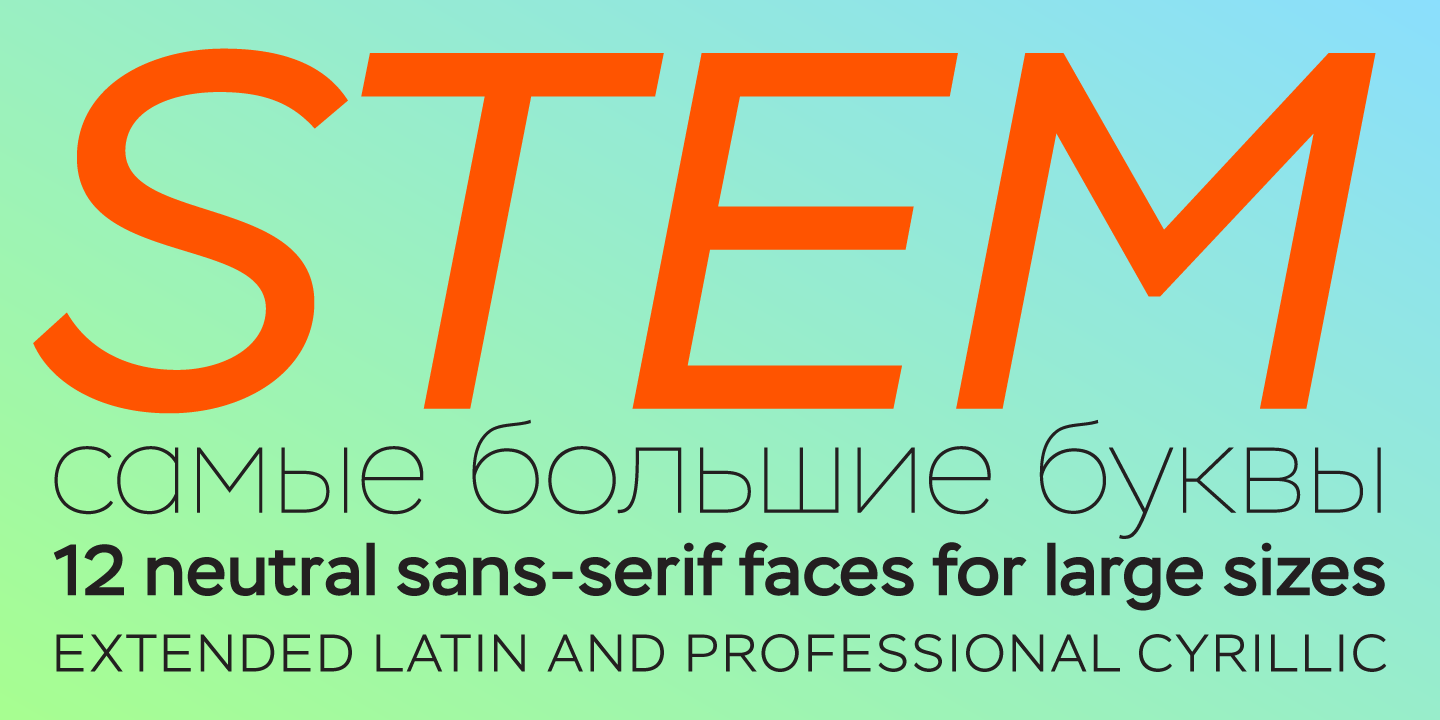
The Stem Font excels in scientific publications, educational materials, technology company branding, research institution communications, engineering documentation, mathematics textbooks, innovation-focused marketing, and STEM-related design projects that require clarity and systematic precision with contemporary appeal.
What makes the Stem Font Free Download so exciting is its perfect embodiment of scientific methodology through typography, featuring clean geometric forms and systematic proportions that reflect the logical structure fundamental to science, technology, engineering, and mathematics. This typeface combines analytical precision with approachable clarity, creating letterforms that communicate complex ideas with exceptional readability while maintaining the authoritative presence essential for educational and professional scientific communications. Its distinctive character speaks to the innovative spirit of discovery and systematic thinking that drives STEM fields forward.
The Stem Font family encompasses comprehensive weight variations from Thin to Black, each maintaining the font's signature systematic character and scientific precision. The collection includes Light, Regular, Medium, Semibold, Bold, and Heavy styles with corresponding italic variants optimized for technical notation and mathematical expressions. This extensive font system provides educators, researchers, and science communicators with versatile typography that works seamlessly across textbooks, research papers, digital platforms, and presentation materials while preserving the clarity essential for effective knowledge transfer.
Essential for educational institutions, research organizations, technology companies, and science communicators requiring typography that conveys intellectual rigor and innovative thinking. The font's systematic appeal makes it invaluable for educators, scientists, and creative professionals developing materials that must make complex STEM concepts accessible and engaging. Download Stem Font Free Download today and cultivate scientific communication excellence with this exceptional typeface that grows knowledge through clear, systematic typography designed for the advancement of human understanding.